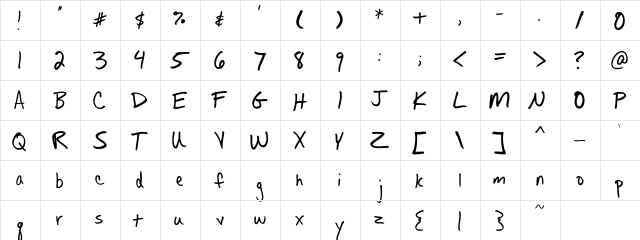
Fh_Allisa Regular
| Foundry | Dan Meyer (Fictionalhead) |
| Designer | Dan Meyer (Fictionalhead) |
Design Context for Fh_Allisa Typeface
Fh_Allisa takes a measured approach to typography — its balanced proportions and neutral character make it a reliable workhorse for both digital and print work.